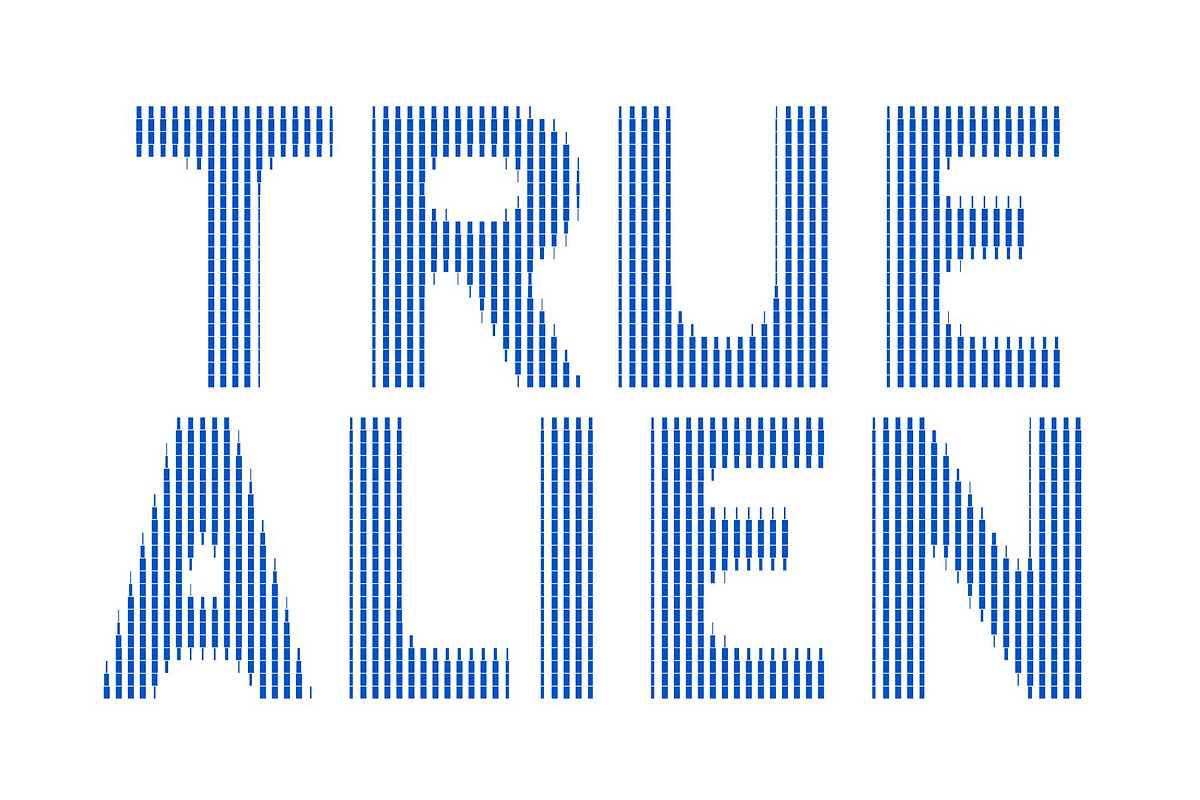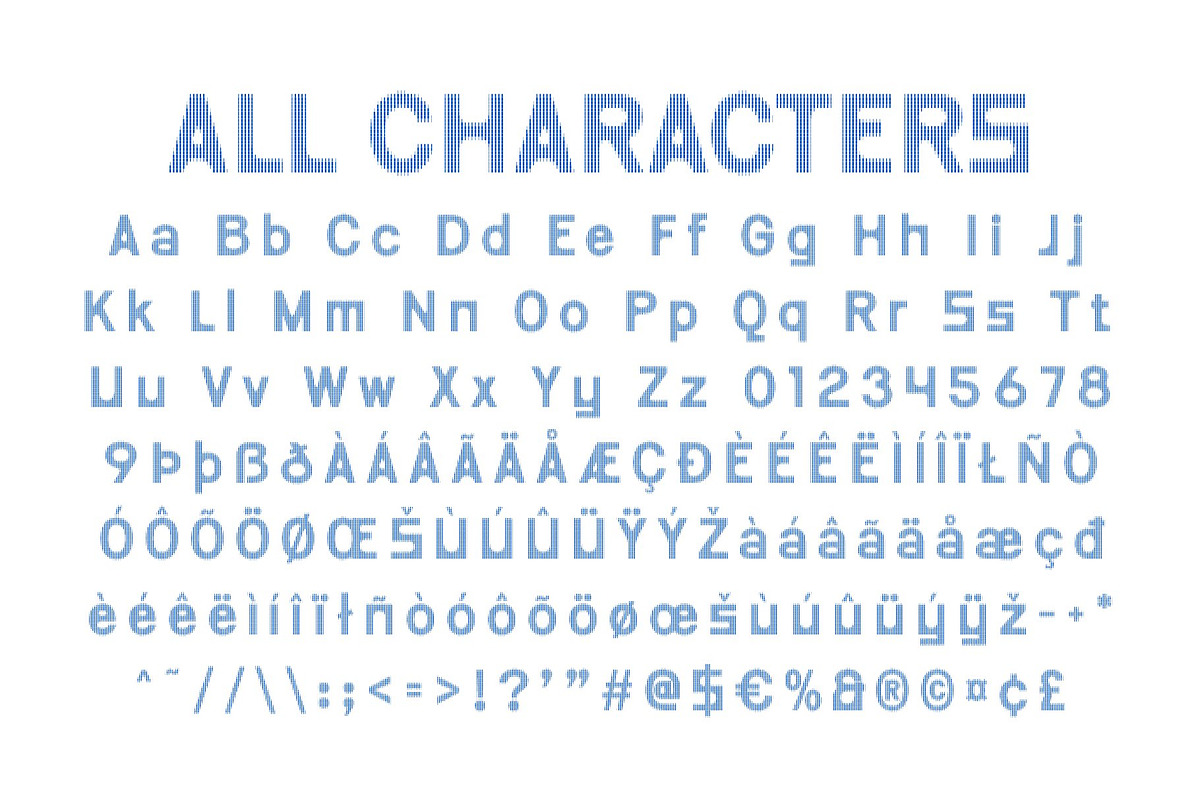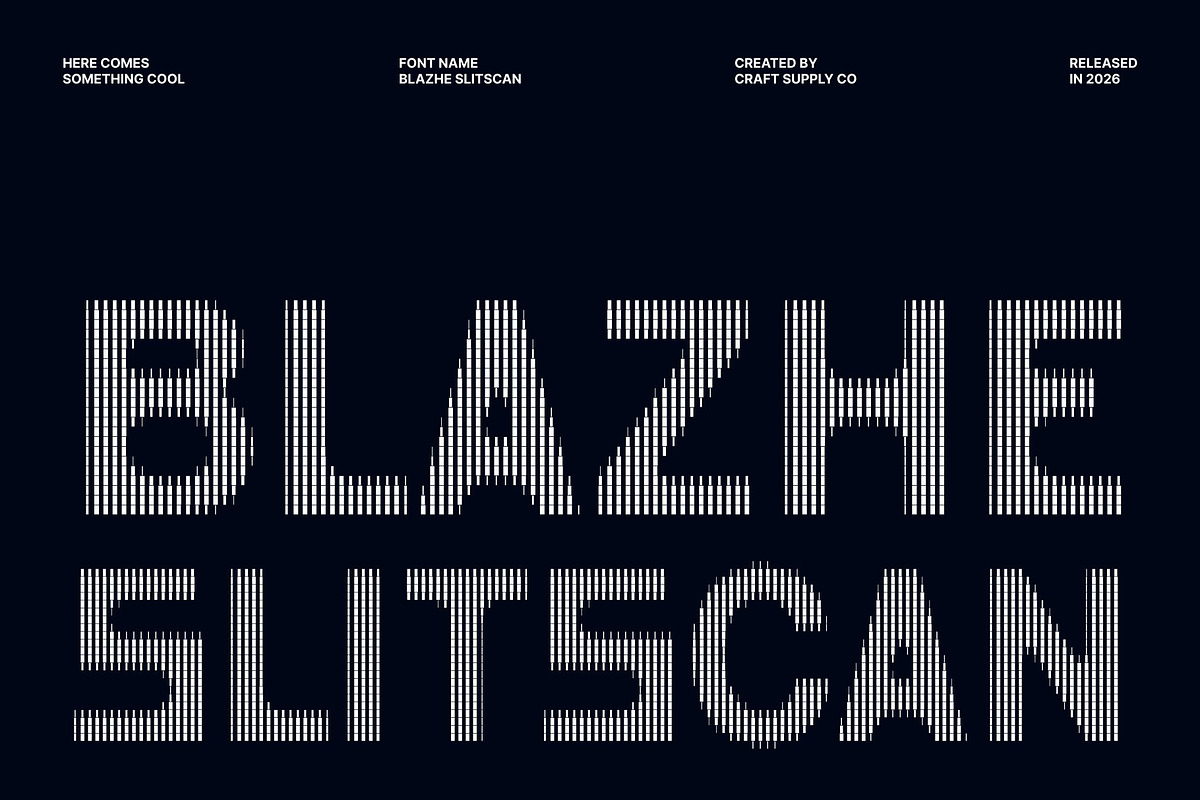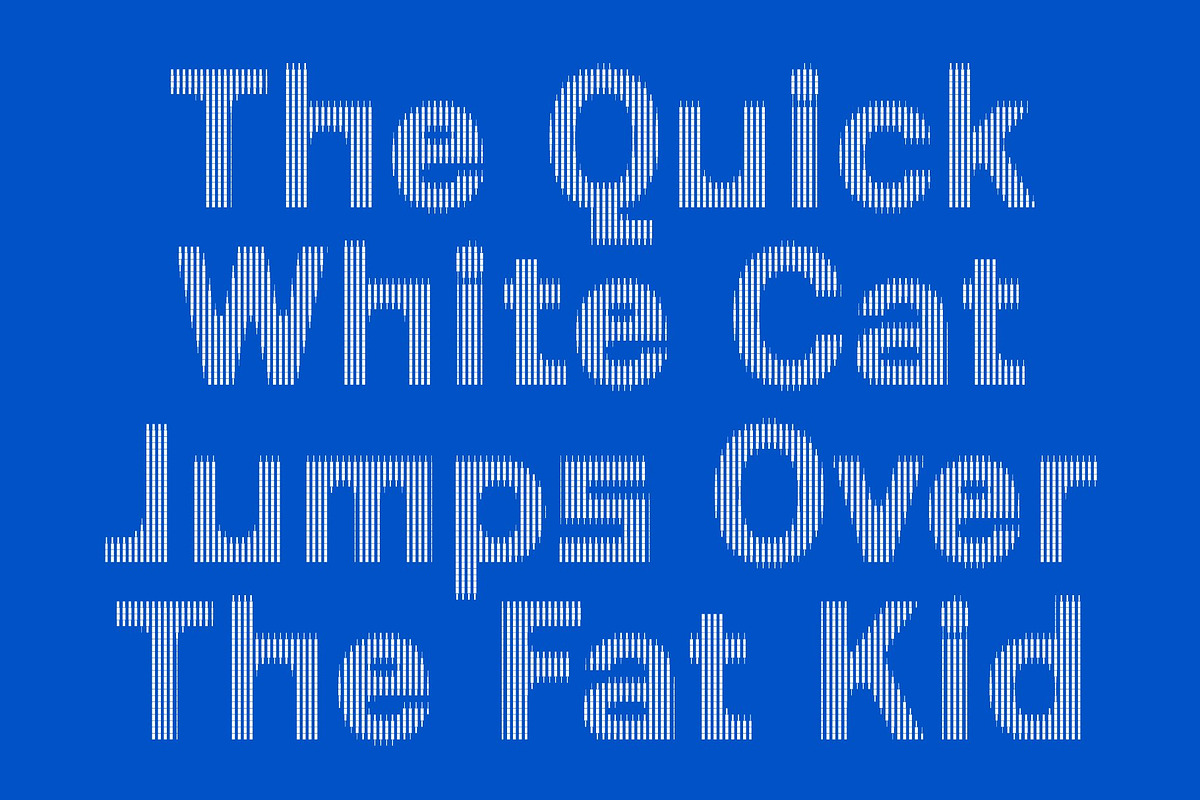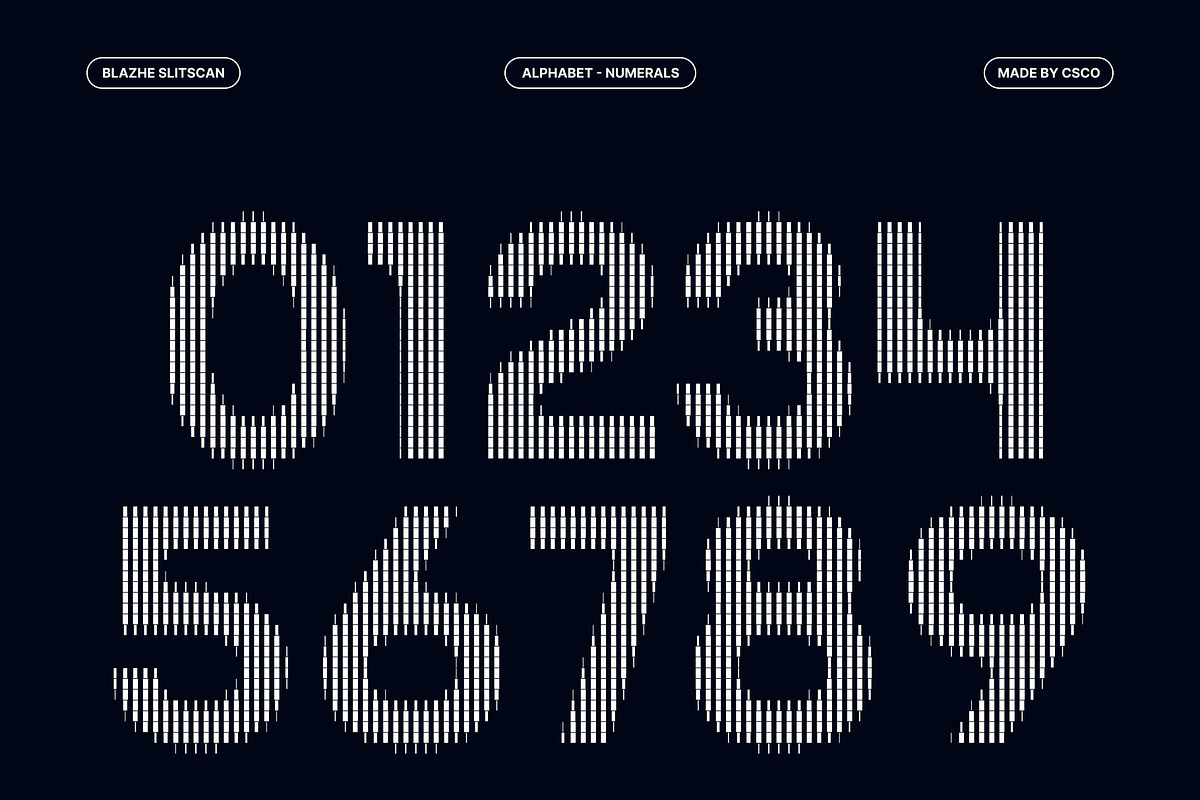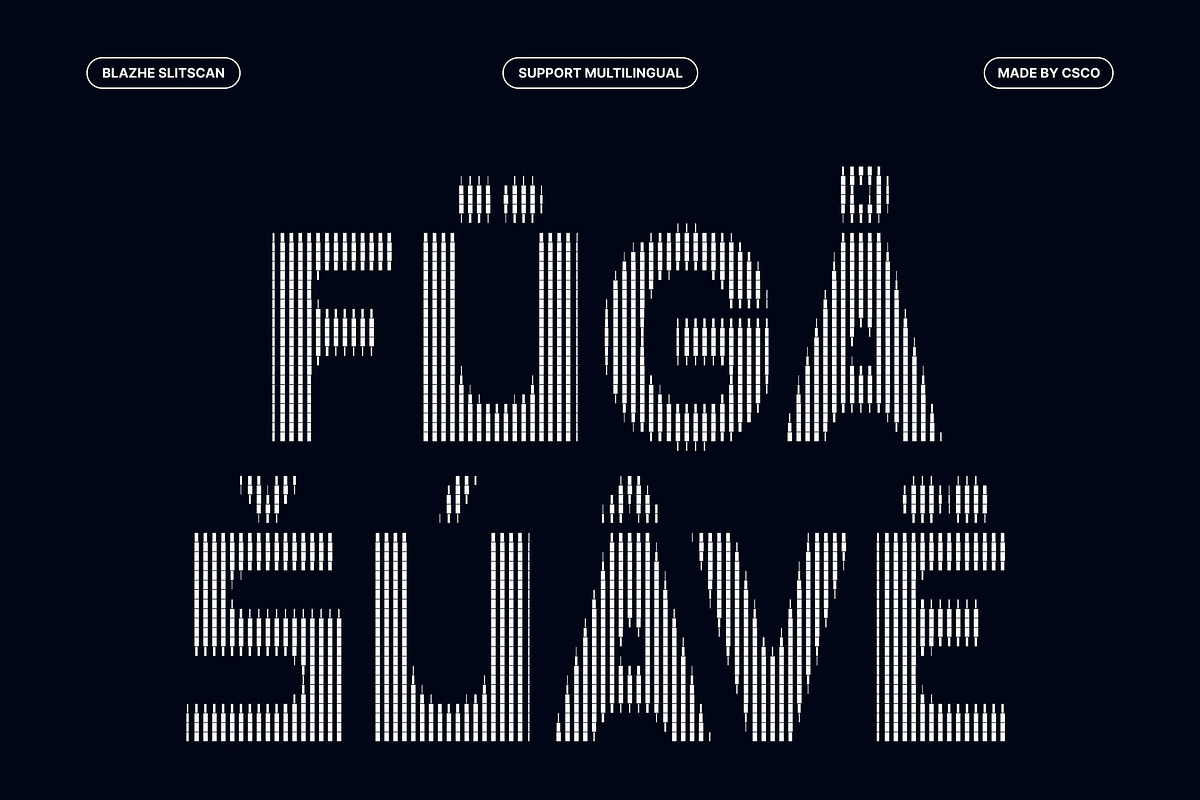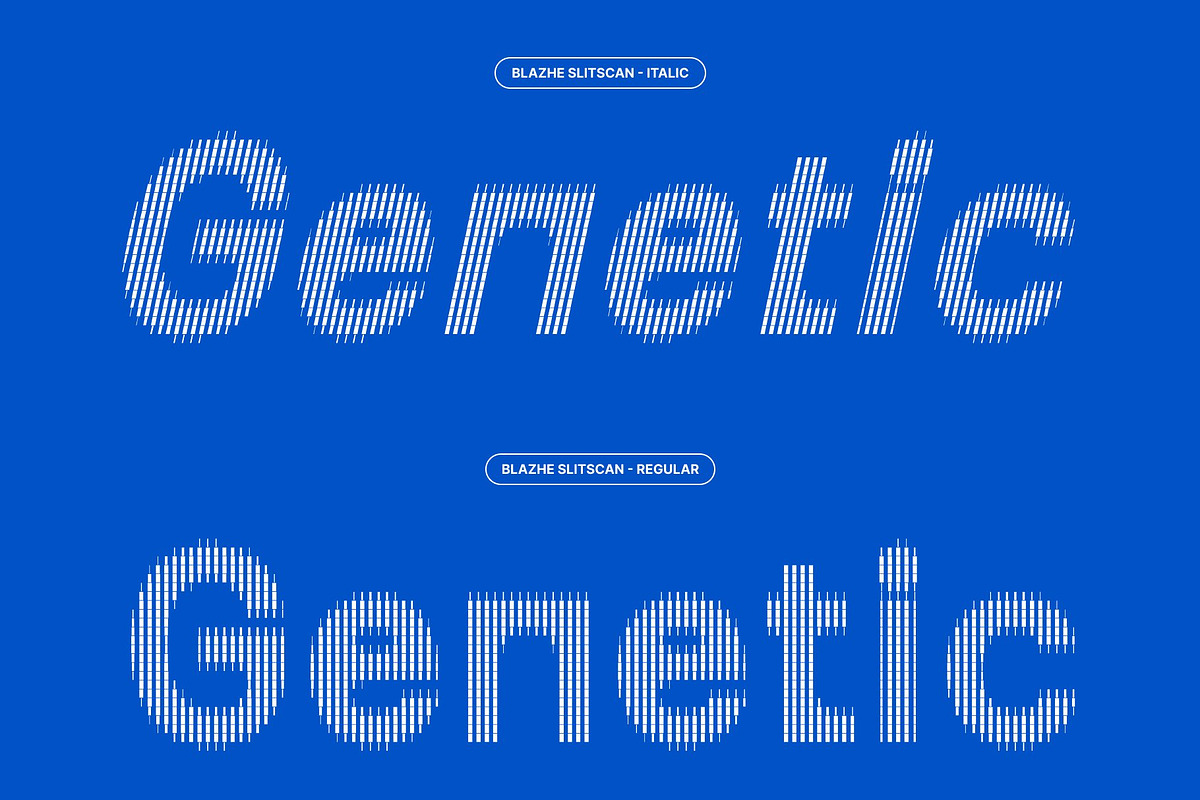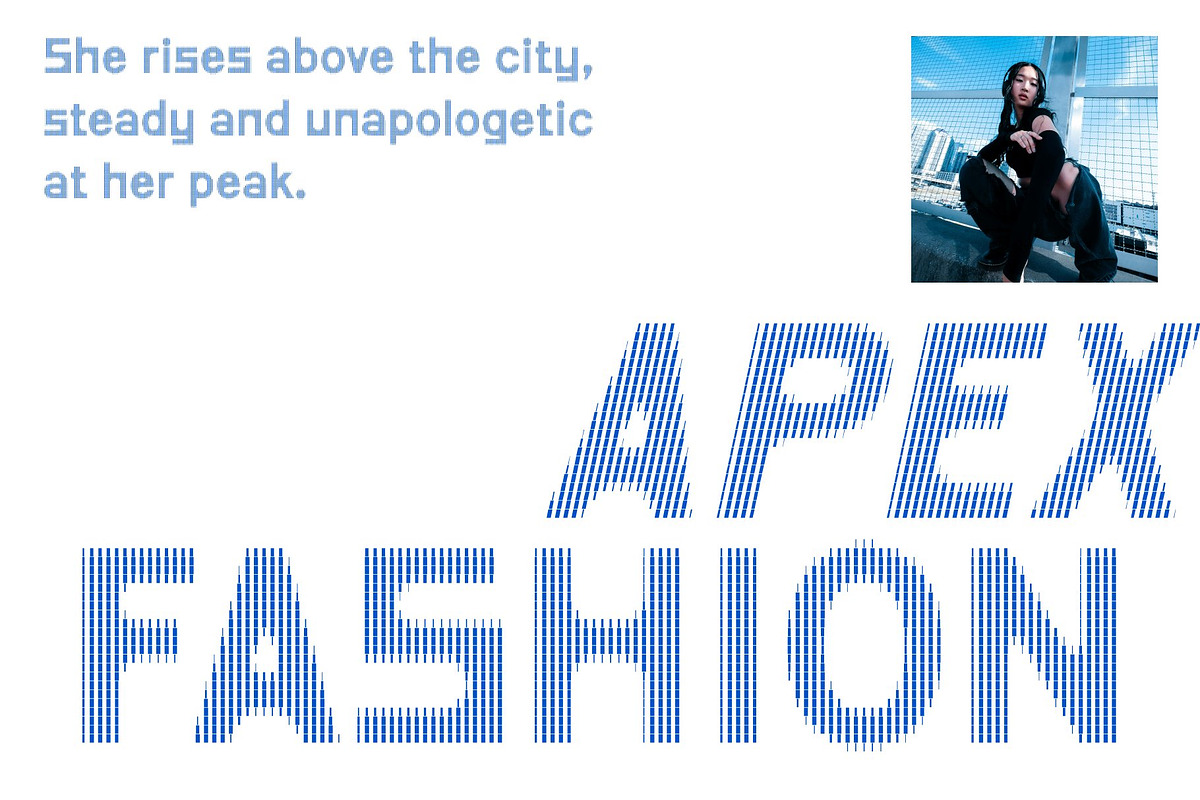
Blazhe Slitscan
Blazhe Slitscan – Where Modern Professionalism Meets Futuristic Motion
Contemporary Corporate Sans Serif This is a modern sans serif typeface designed to deliver a clean, contemporary, and professional visual presence. Its sleek construction and balanced proportions create a refined corporate aesthetic that feels confident, modern, and highly versatile.
Slitscan Effect: Subtle Motion with Digital Sophistication Inspired by the slit-scan visual technique, this typeface incorporates vertical sliced layers that introduce movement and futuristic character. The effect adds a contemporary digital edge while maintaining the clarity and professionalism of its clean sans serif foundation.
Modern Design with Professional Appeal Sharp lines and streamlined forms give this font a polished and sophisticated appearance. Its modern structure communicates precision, credibility, and efficiency, making it ideal for brands and projects that value clarity and innovation.
Perfect for Corporate and Contemporary Branding Ideal for business presentations, company logos, editorial layouts, websites, corporate identities, and marketing materials. This font provides a professional typographic voice with enough visual distinction to stand out in modern design environments.
Versatile, Readable, and Functional Despite its distinctive slit-scan styling, the font remains highly legible across large headlines and smaller text applications. Its adaptable structure allows seamless use across both print and digital media.
Blazhe Slitscan Regular
Blazhe Slitscan Italic